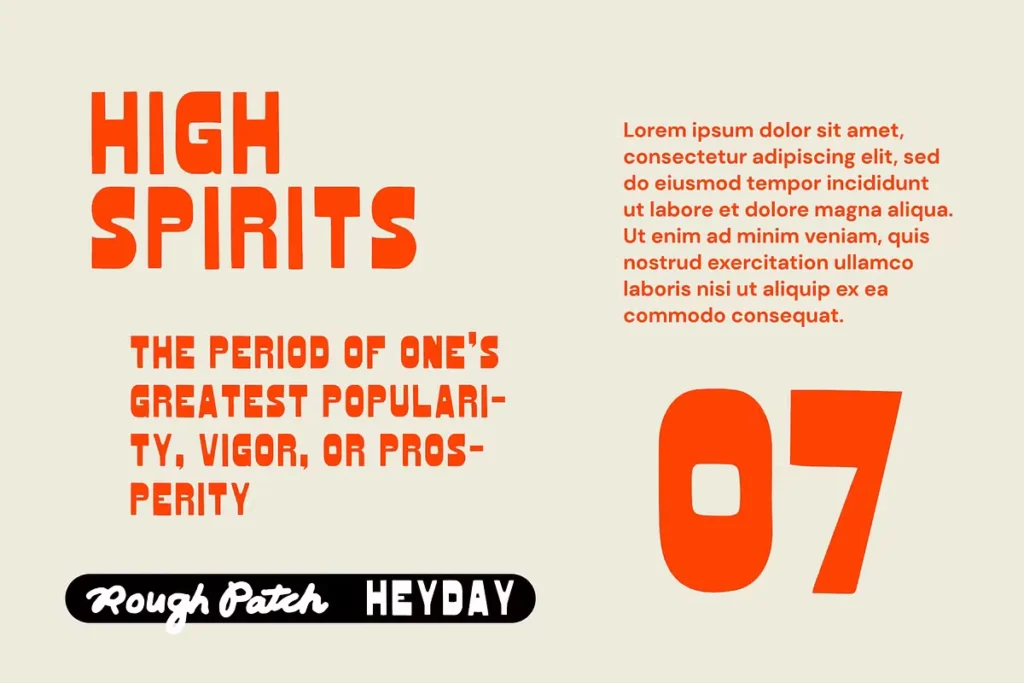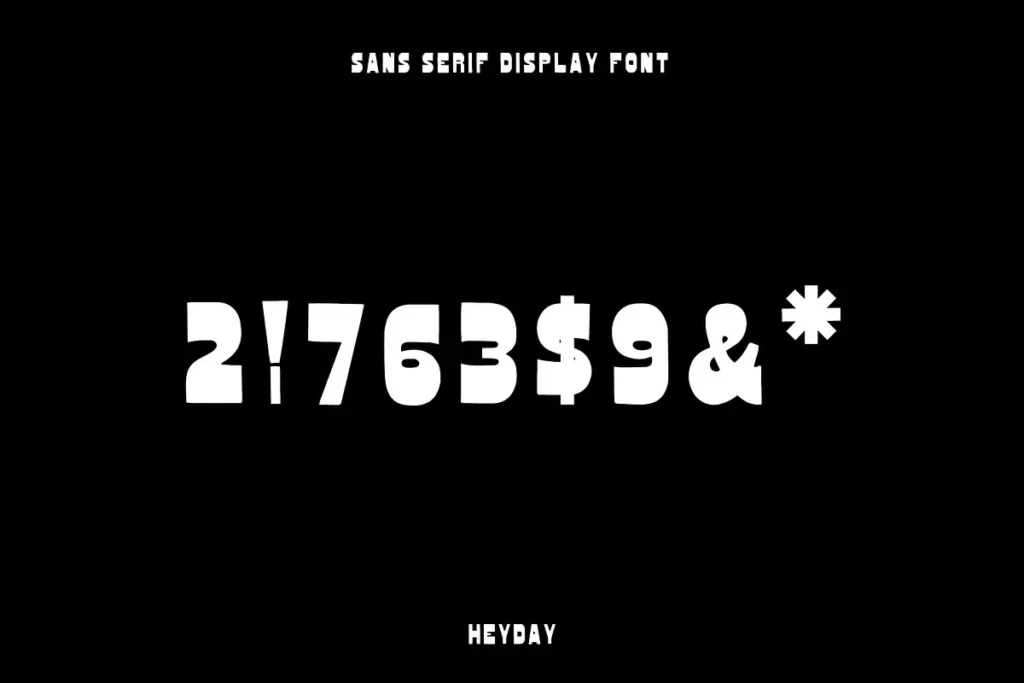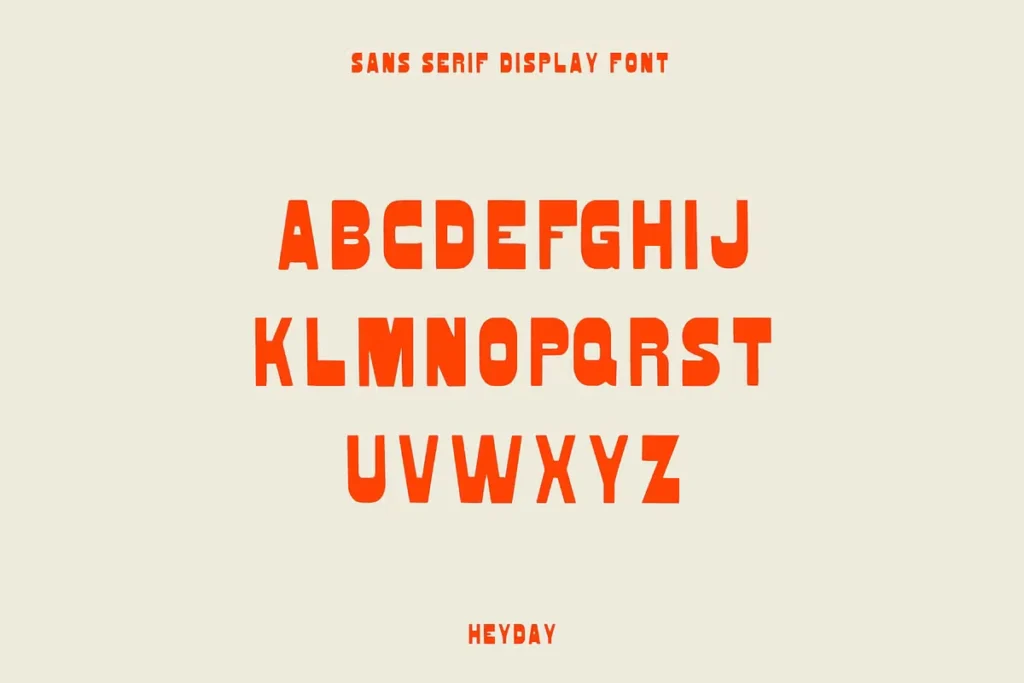
HeyDay – Free Sans Serif Display Font
HeyDay Free Sans Serif Display Font
HeyDay is a bold and stylish free sans serif display font designed to make your creative projects stand out. Featuring uppercase letters with varied weight strokes, a strong structure, and plenty of personality, this font delivers a modern yet playful look that captures attention instantly. Whether you’re designing logos, branding materials, product packaging, signage, posters, website headers, social media graphics, or eye-catching titles, HeyDay offers the versatility needed to create memorable designs.
The font includes a complete set of uppercase A–Z characters, numbers, and essential symbols, making it suitable for a wide range of professional and personal design projects. Its clean sans serif construction combined with unique character details creates a groovy and distinctive visual style that works exceptionally well for contemporary branding and display purposes.
Designers looking for a unique typeface that balances readability with creativity will appreciate HeyDay’s bold appearance and strong visual impact. From startup logos and marketing campaigns to web design and packaging concepts, this font helps convey confidence, energy, and originality. Download HeyDay today and add a fresh, modern, and character-rich display font to your typography collection.
Designer: Rough Patch Studio